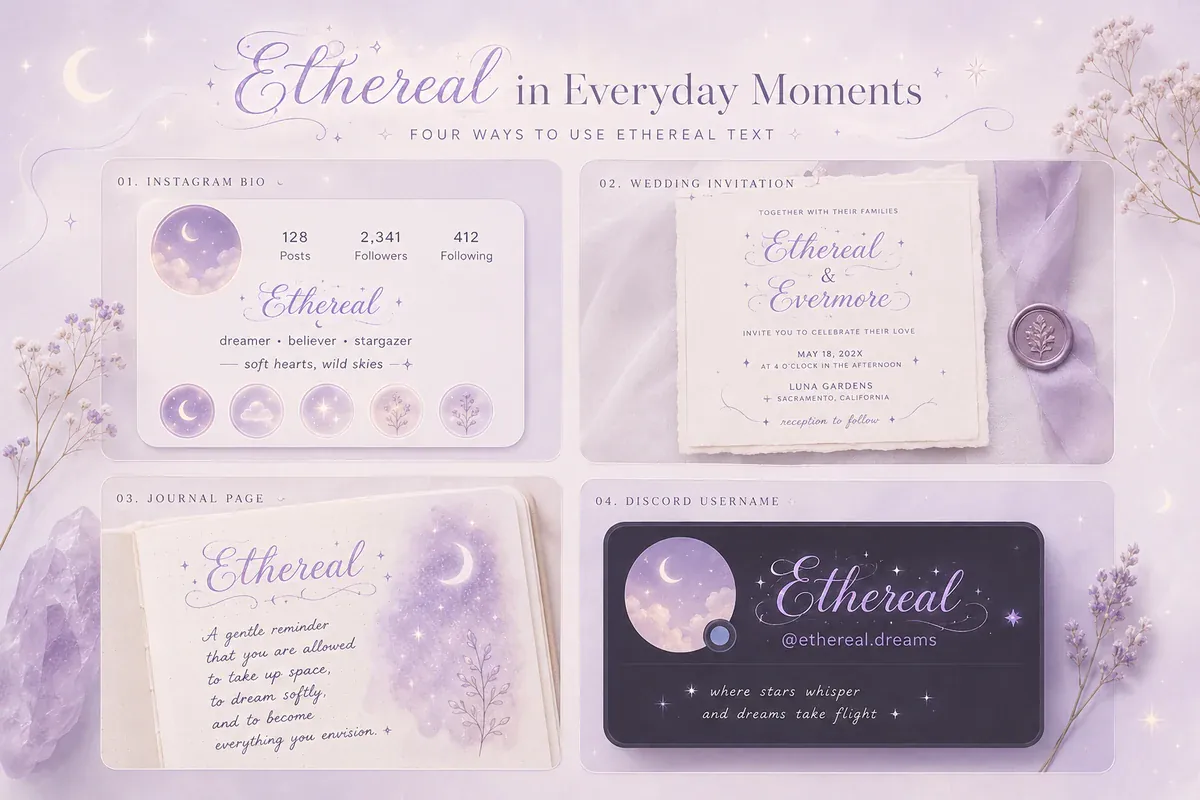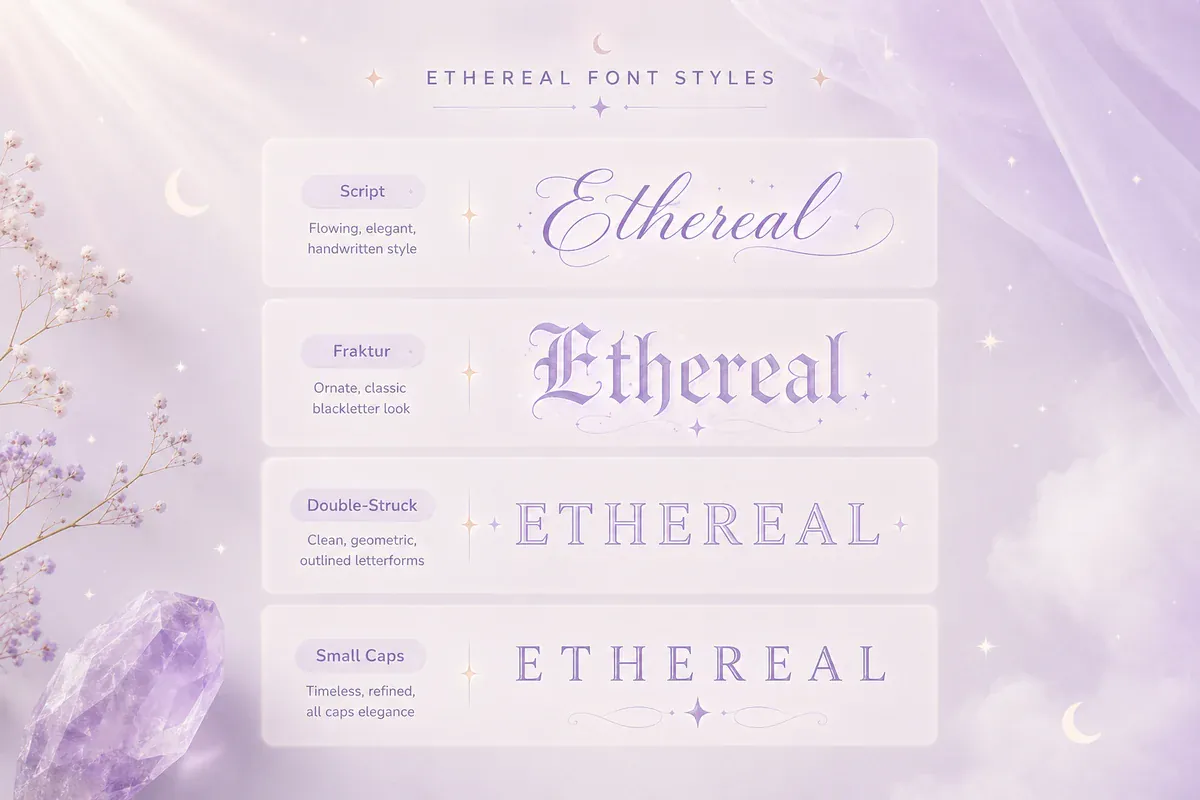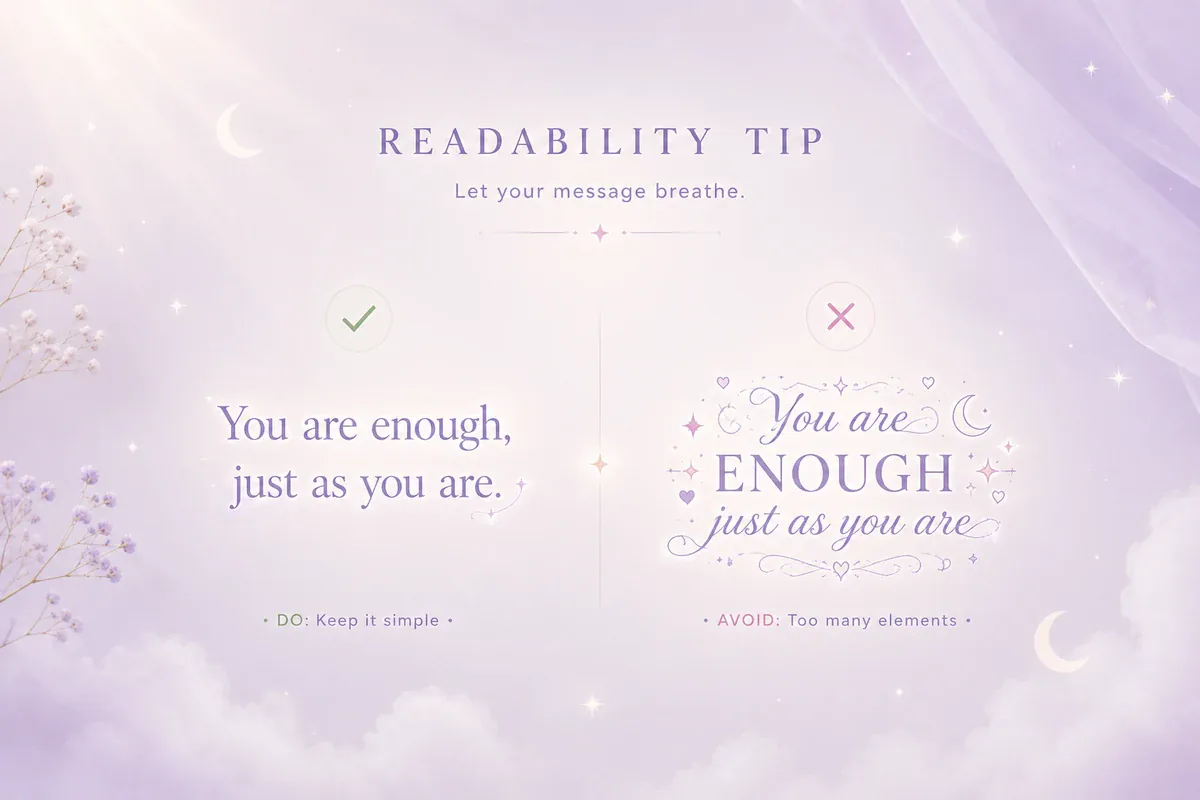
Ethereal Font Generator - Dreamy Fonts Copy and Paste
Free ethereal font generator to copy and paste dreamy, celestial text. Explore 36 soft aesthetic Unicode styles for Instagram, TikTok, Discord, and more.
Dreamy Ethereal Fonts Copy and Paste
Want soft, dreamy text that looks like moonlight and mist? This ethereal font generator turns your words into celestial, airy styles you can copy and paste in one tap โ no app, no font file, no sign-up. Type once below, pick the look you love, and paste it straight into an Instagram bio, TikTok caption, Discord name, or wedding invite.
What Is an Ethereal Font Generator?
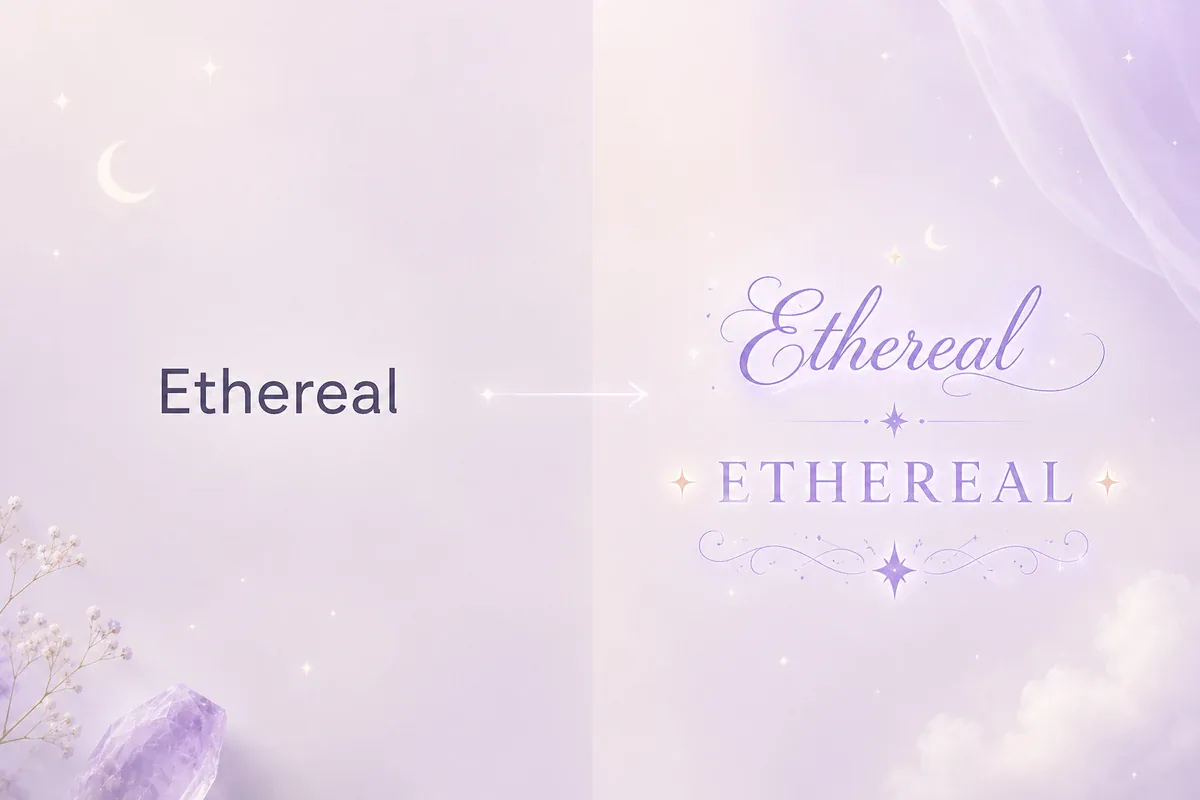
An ethereal font generator takes your normal text and rewrites it using soft, dreamy Unicode characters โ flowing script, misty blackletter, airy wide letters, and gentle small caps. The result looks like a delicate custom font, but it is made from plain characters that any device can read.
That difference matters because the styles are built from Unicode โ the same standard behind emojis and every alphabet โ so the text stays styled after you paste it. There is nothing to install and nothing to break.
For example, the word "Ethereal" becomes โฐ๐๐ฝโฏ๐โฏ๐ถ๐ in dreamy script or ๐ผ๐ฅ๐๐๐ฃ๐๐๐ in a celestial double-struck style. It is the same word with a softer mood.
How to Make Dreamy Text (3 Steps)
- Type your text. Enter a name, quote, or phrase in the input box. Every ethereal style updates live as you type.
- Pick a style. Scroll the dreamy, celestial, and airy options and find the one that fits your vibe.
- Copy and paste. Tap Copy, then paste into your bio, caption, message, or design. That is it.
36 Ethereal Fonts to Copy and Paste
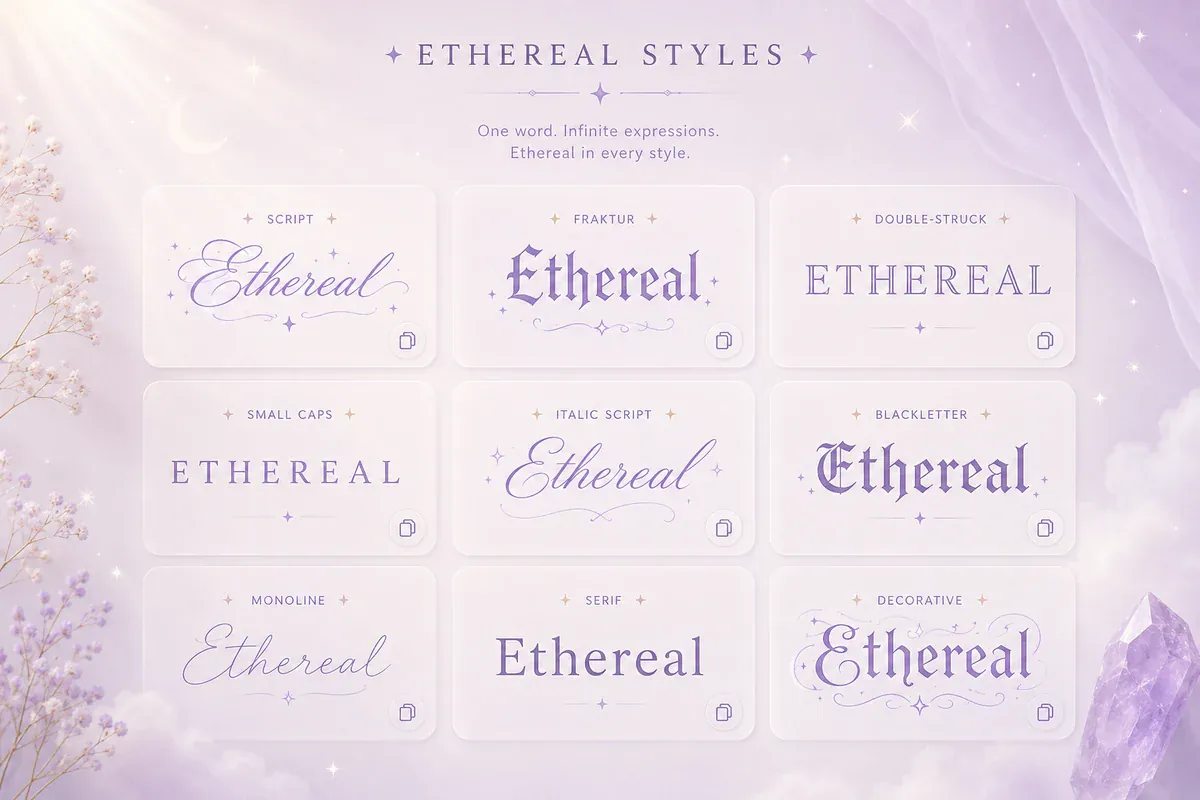
Here are 36 dreamy styles applied to the word Ethereal. Swap in your own text in the ethereal font generator to get these looks for any word โ a name, a bio line, or a caption.
-
Dreamy Script โ ยฐหโง โฐ๐๐ฝโฏ๐โฏ๐ถ๐ โงหยฐ
-
Bold Script Glow โ โโญห๏ฝกโ ๐๐ฝ๐ฑ๐ฎ๐ป๐ฎ๐ช๐ต โ๏ฝกหโญโ
-
Fraktur Mist โ โฆ ๐๐ฑ๐ฅ๐ข๐ฏ๐ข๐๐ฉ โฆ
-
Bold Fraktur Veil โ เฟ ๐ฐ๐๐๐๐๐๐๐ เฟ
-
Celestial Double-Struck โ โพ ๐ผ๐ฅ๐๐๐ฃ๐๐๐ โฝ
-
Whisper Small Caps โ ๏ฝก๏พ แดแดสแดสแดแดส ๏พ๏ฝก
-
Airy Wide โ โ ๏ผฅ๏ฝ๏ฝ๏ฝ ๏ฝ๏ฝ ๏ฝ๏ฝ โ
-
Moonlit Italic โ โหโน ๐ฌ๐๐๐๐๐๐๐ โนหโ
-
Faded Monospace โ โ ๐ด๐๐๐๐๐๐๐ โ
-
Soft Serif Bold โ โฅ ๐๐ญ๐ก๐๐ซ๐๐๐ฅ โฅ
-
Starfall Script โ โโฉโงโห โฐ๐๐ฝโฏ๐โฏ๐ถ๐ หโโงโฉโ
-
Cloud Drift โ โ๏ธ แดแดสแดสแดแดส โ๏ธ
-
Angelic Spaced โ โ โฐ ๐ ๐ฝ โฏ ๐ โฏ ๐ถ ๐ โ
-
Crystal Fraktur โ โ ๐๐ฑ๐ฅ๐ข๐ฏ๐ข๐๐ฉ โ
-
Aurora Wide โ ห เผ โ๏ฝกห ๏ผฅ๏ฝ๏ฝ๏ฝ ๏ฝ๏ฝ ๏ฝ๏ฝ ห๏ฝกโ เผ ห
-
Twilight Script โ โน เฃช ห โฐ๐๐ฝโฏ๐โฏ๐ถ๐ ห เฃช โน
-
Fairy Dust โ โหโก ๐๐ฝ๐ฑ๐ฎ๐ป๐ฎ๐ช๐ต โกหโ
-
Silk Small Caps โ โข แดแดสแดสแดแดส โฃ
-
Ethereal Manuscript โ ๊ง ๐ฐ๐๐๐๐๐๐๐ ๊ง
-
Pearl Double-Struck โ โก ๐ผ๐ฅ๐๐๐ฃ๐๐๐ โก
-
Mystic Monospace โ โ ๐ด๐๐๐๐๐๐๐ โ
-
Velvet Italic โ โถ ๐ฌ๐๐๐๐๐๐๐ โถ
-
Halo Script โ เผโงโหโง โฐ๐๐ฝโฏ๐โฏ๐ถ๐ โงหโโงเผ
-
Snowveil Wide โ โ ๏ผฅ๏ฝ๏ฝ๏ฝ ๏ฝ๏ฝ ๏ฝ๏ฝ โ
-
Gossamer Fraktur โ โงโ ๐๐ฑ๐ฅ๐ข๐ฏ๐ข๐๐ฉ โโง
-
Lunar Small Caps โ โ๏ฝกยฐโฉ แดแดสแดสแดแดส โฉยฐ๏ฝกโ
-
Enchanted Script โ โฟ ๐๐ฝ๐ฑ๐ฎ๐ป๐ฎ๐ช๐ต โฟ
-
Featherlight Italic โ โธ ๐๐ต๐ฉ๐ฆ๐ณ๐ฆ๐ข๐ญ โธ
-
Stardust Serif โ โญ ๐๐ญ๐ก๐๐ซ๐๐๐ฅ โญ
-
Wisp Spaced Fraktur โ โก ๐ ๐ฑ ๐ฅ ๐ข ๐ฏ ๐ข ๐ ๐ฉ โก
-
Nebula Double-Struck โ โนโ ๐ผ๐ฅ๐๐๐ฃ๐๐๐ โโน
-
Petal Script โ โ๏ฝก โฐ๐๐ฝโฏ๐โฏ๐ถ๐ ๏ฝกโ
-
Moonstone Fraktur โ โ ๐ฐ๐๐๐๐๐๐๐ โ
-
Cascade Wide โ โ ๏ผฅ๏ฝ๏ฝ๏ฝ ๏ฝ๏ฝ ๏ฝ๏ฝ โ
-
Seraph Small Caps โ เฟ แดแดสแดสแดแดส เฟ
-
Frost Italic โ โ ๐ฌ๐๐๐๐๐๐๐ โ